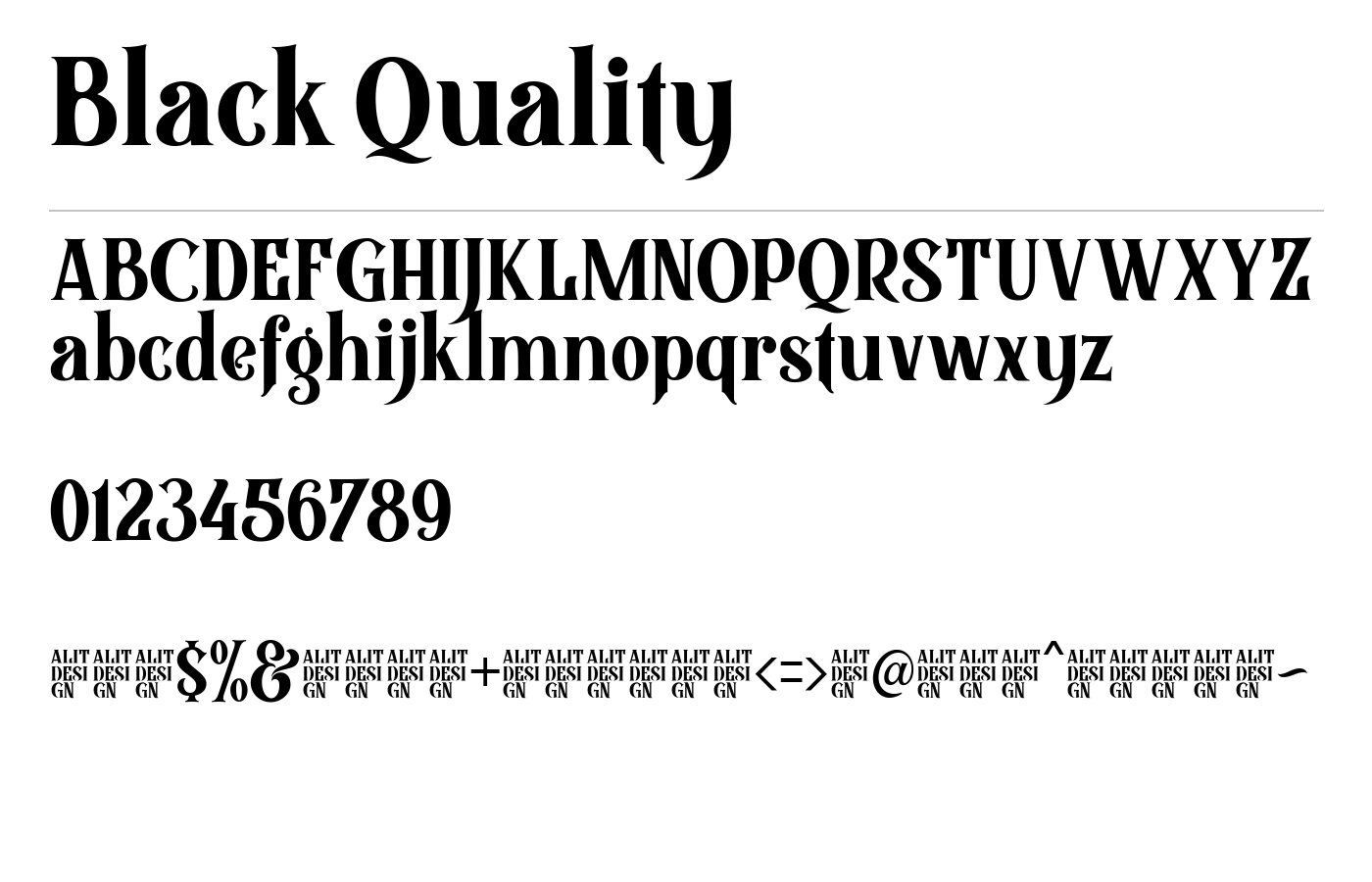
Black Quality Font is a bold, serif typeface with a strong presence, featuring high contrast between thick and thin strokes and sharp, bracketed serifs that add a touch of elegance. Its condensed width and distinctive letterforms, like the curved tail on the Q and double-story a and g, make it ideal for luxury branding, editorial headlines, and sophisticated packaging where impact and style matter. This font combines a classic yet modern personality, making it perfect for designs that need to convey quality and refinement.
Black Quality Font
About Black Quality Font
| Font family | Black Quality Font |
| Designer | Alit Suarnegara |